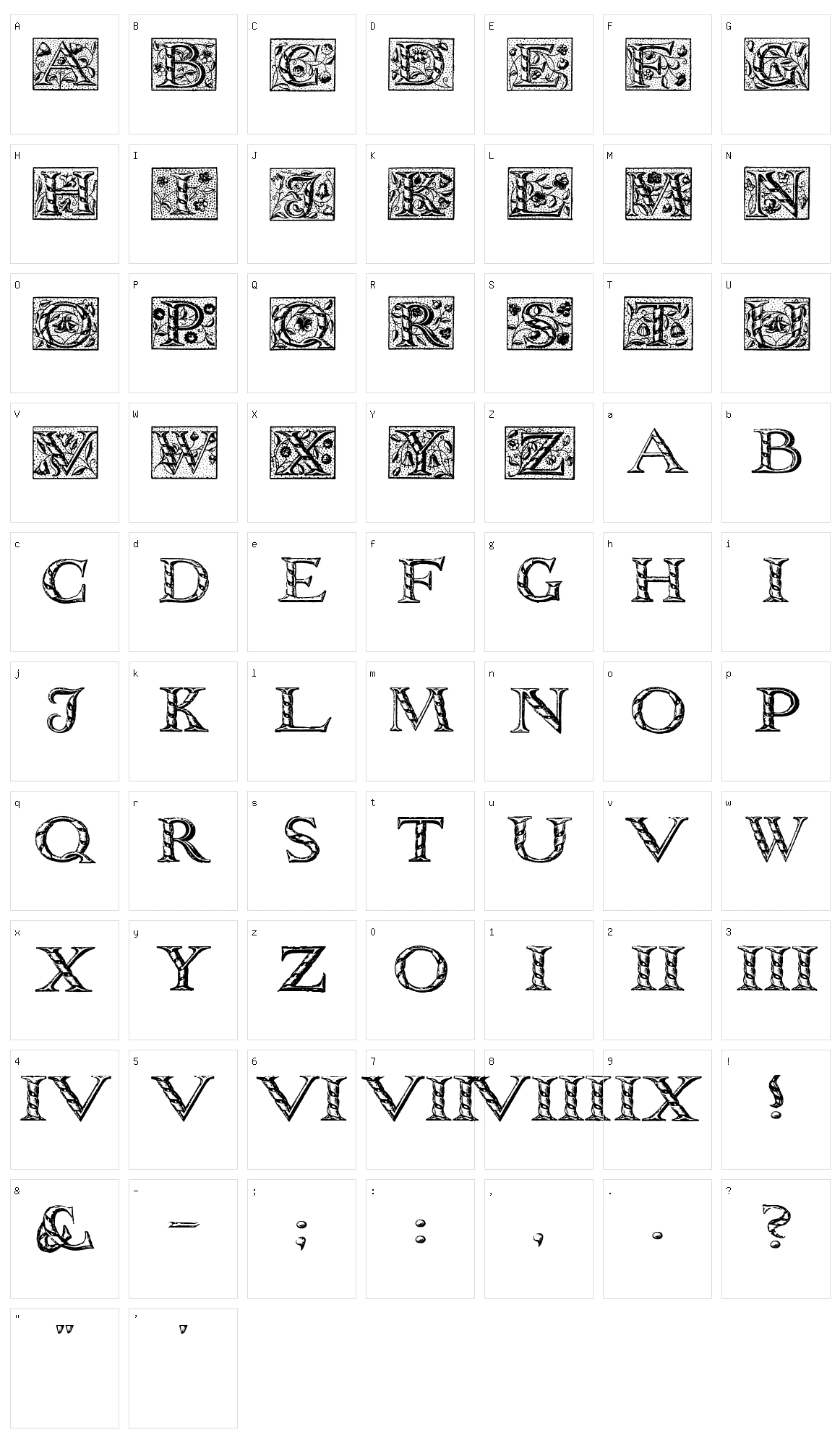
Wolnough
is based on a set of 20 or so early English printers initials I found.
I completed the set, and separated the letter forms from the initials
and added enough basic punctuation, to make a face with a nice solid,
three dimensional feel. I think this makes a very good
face for titles in 'period' work ...